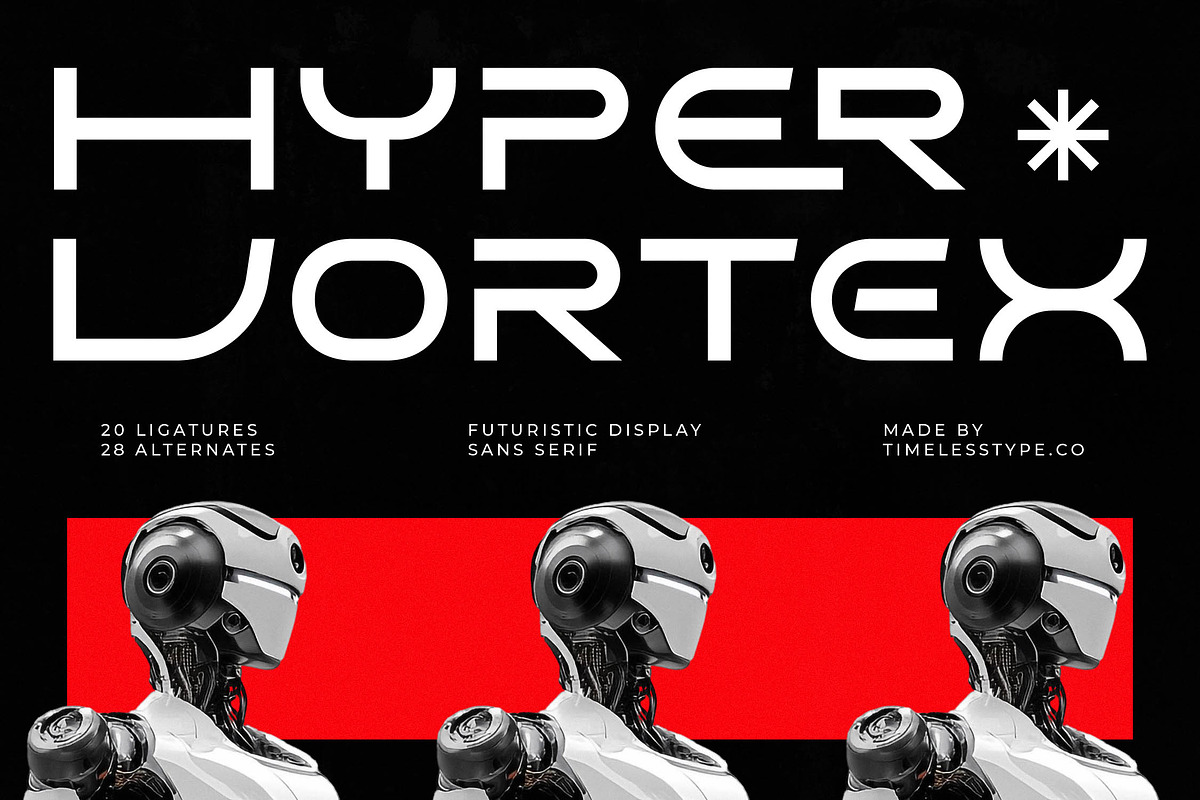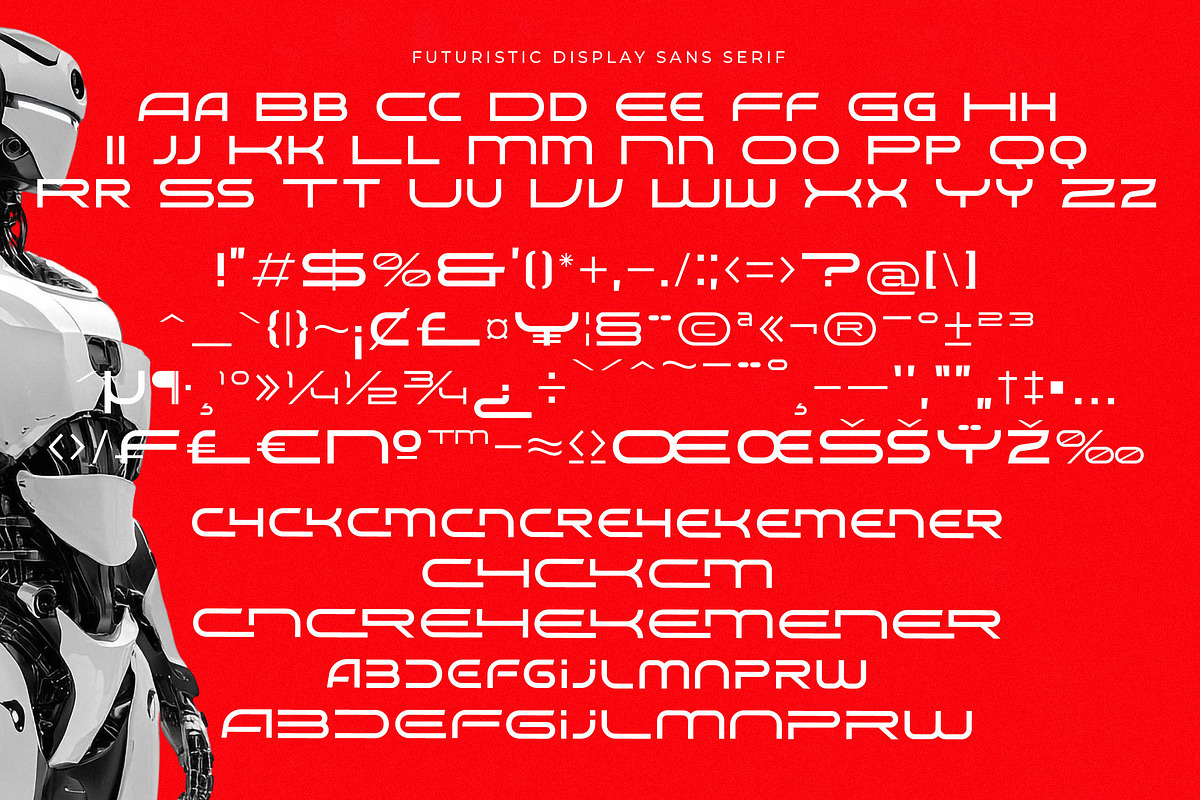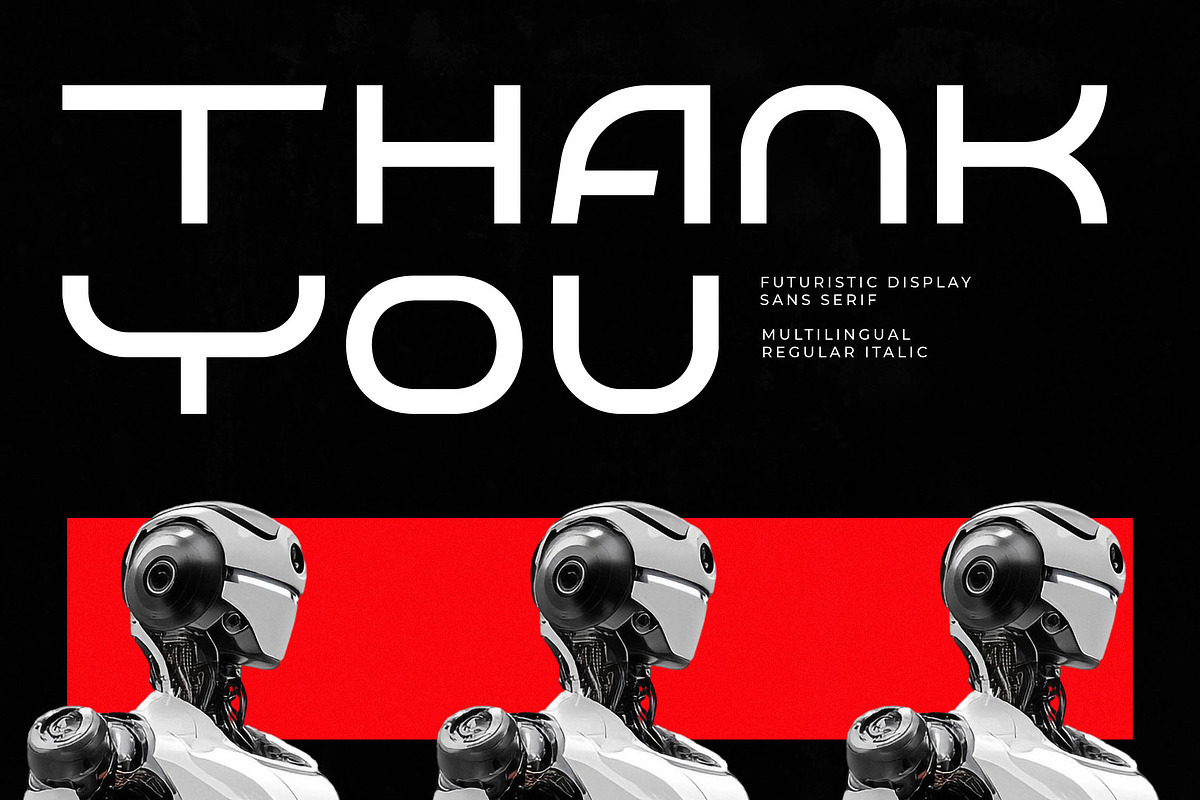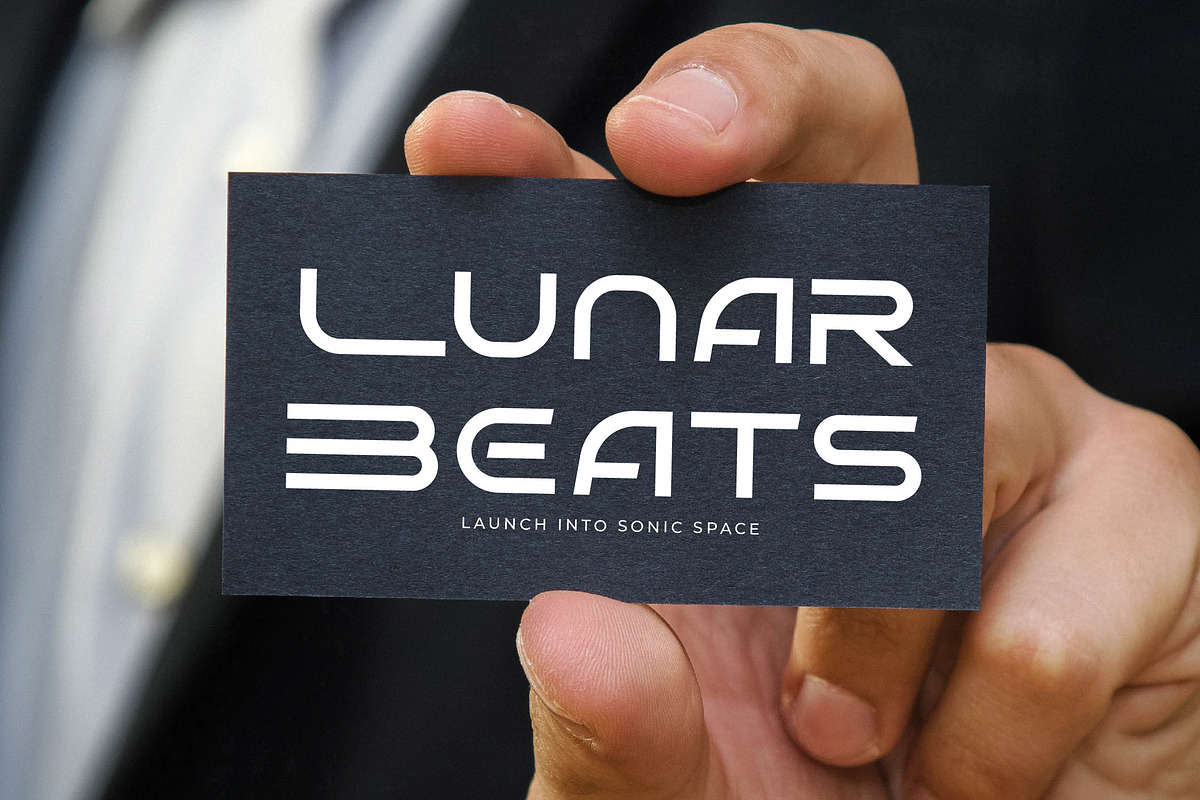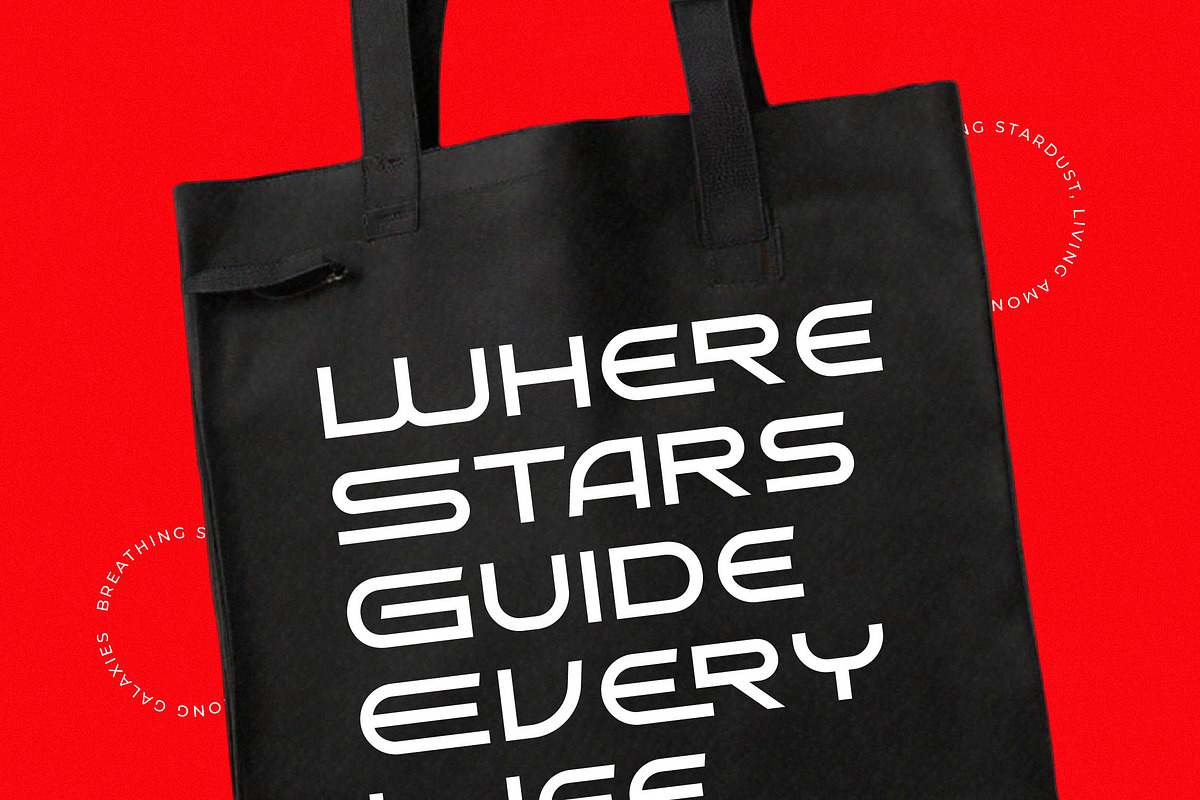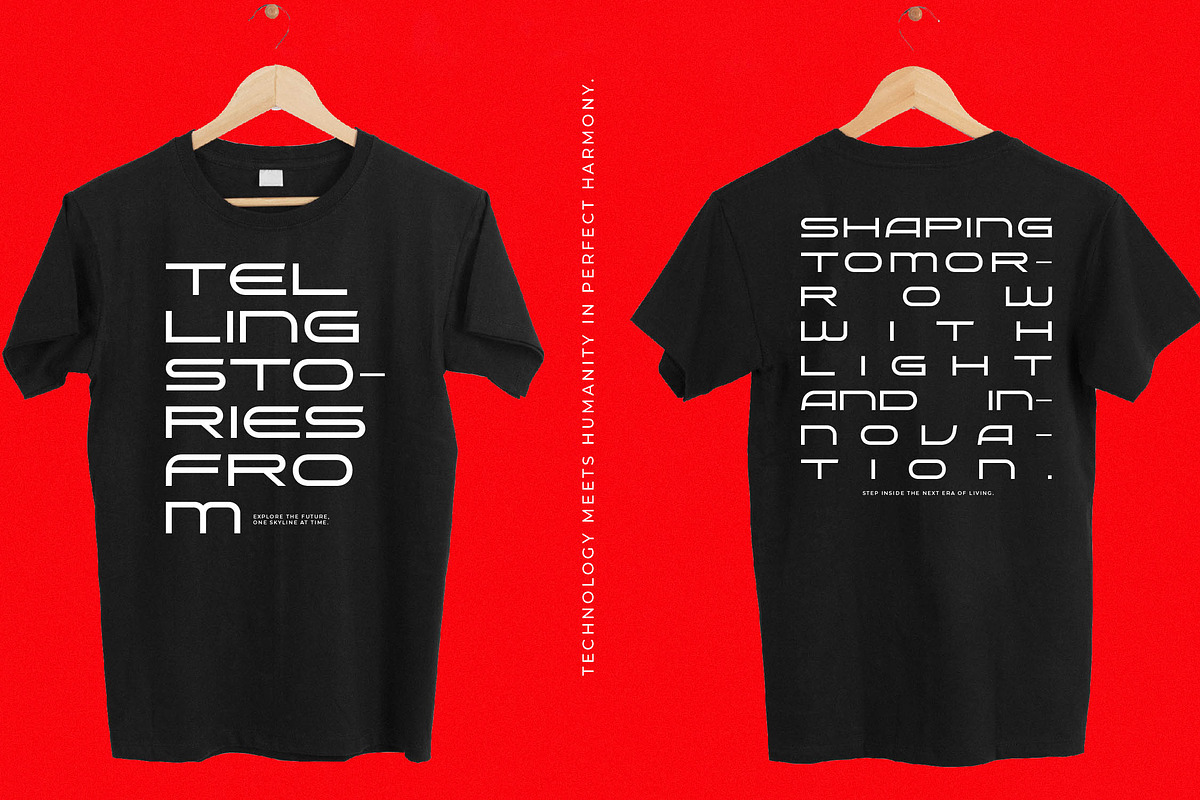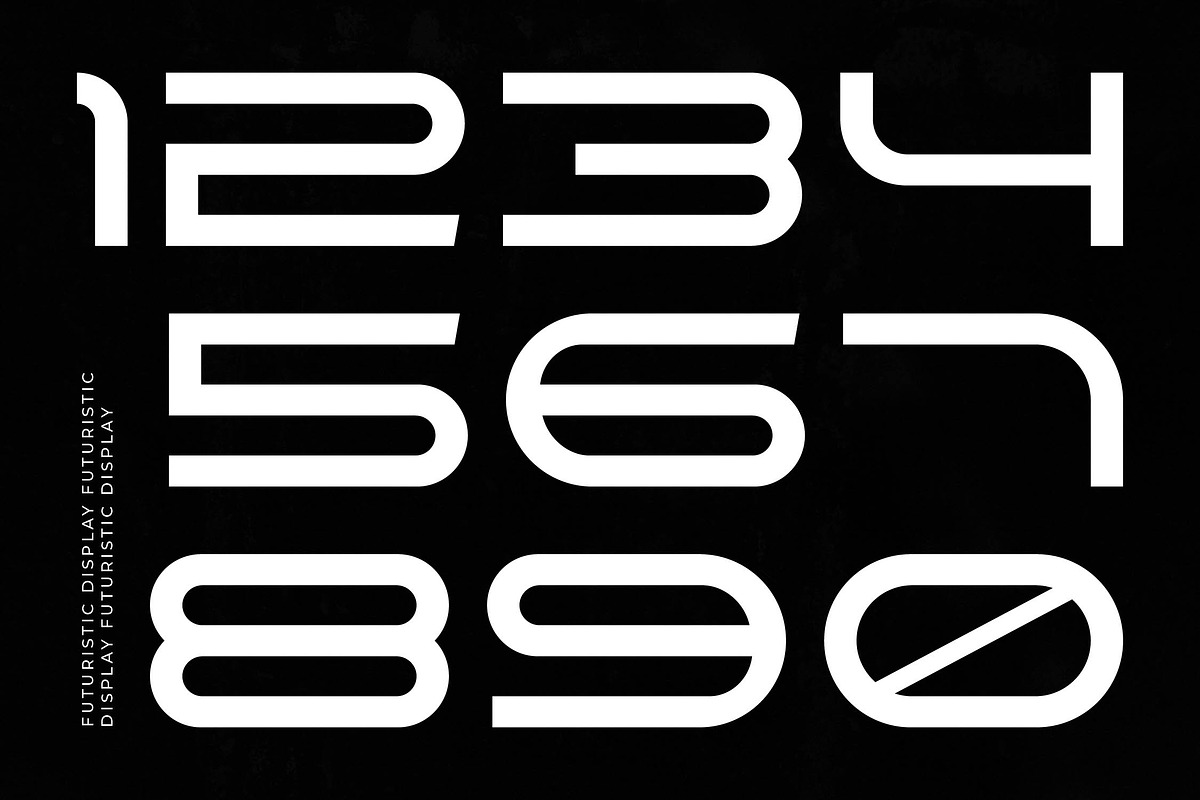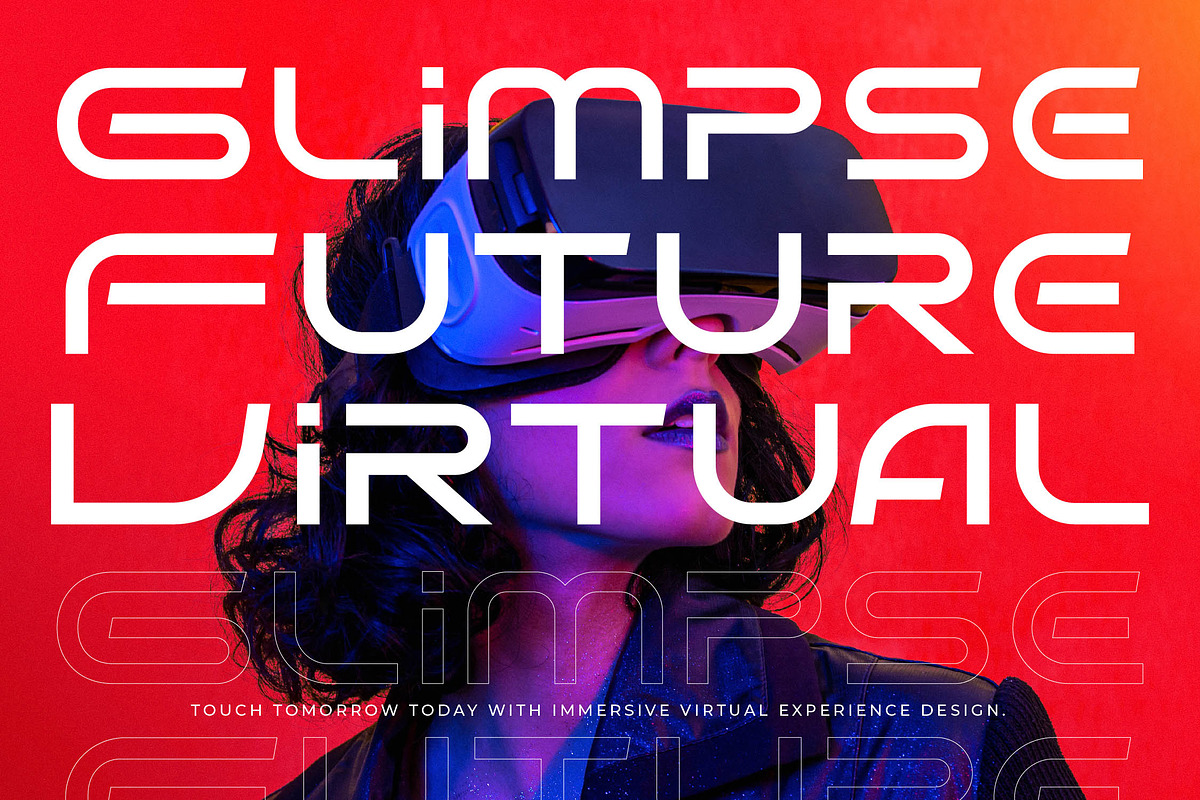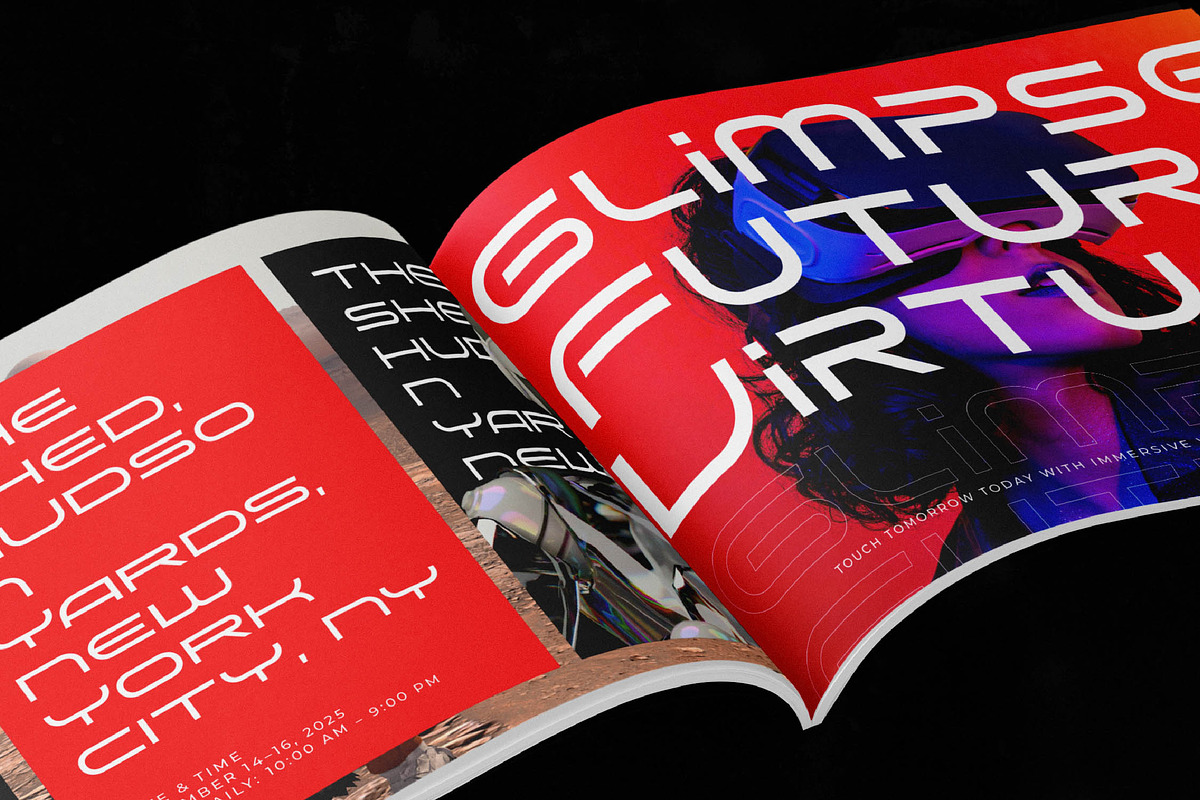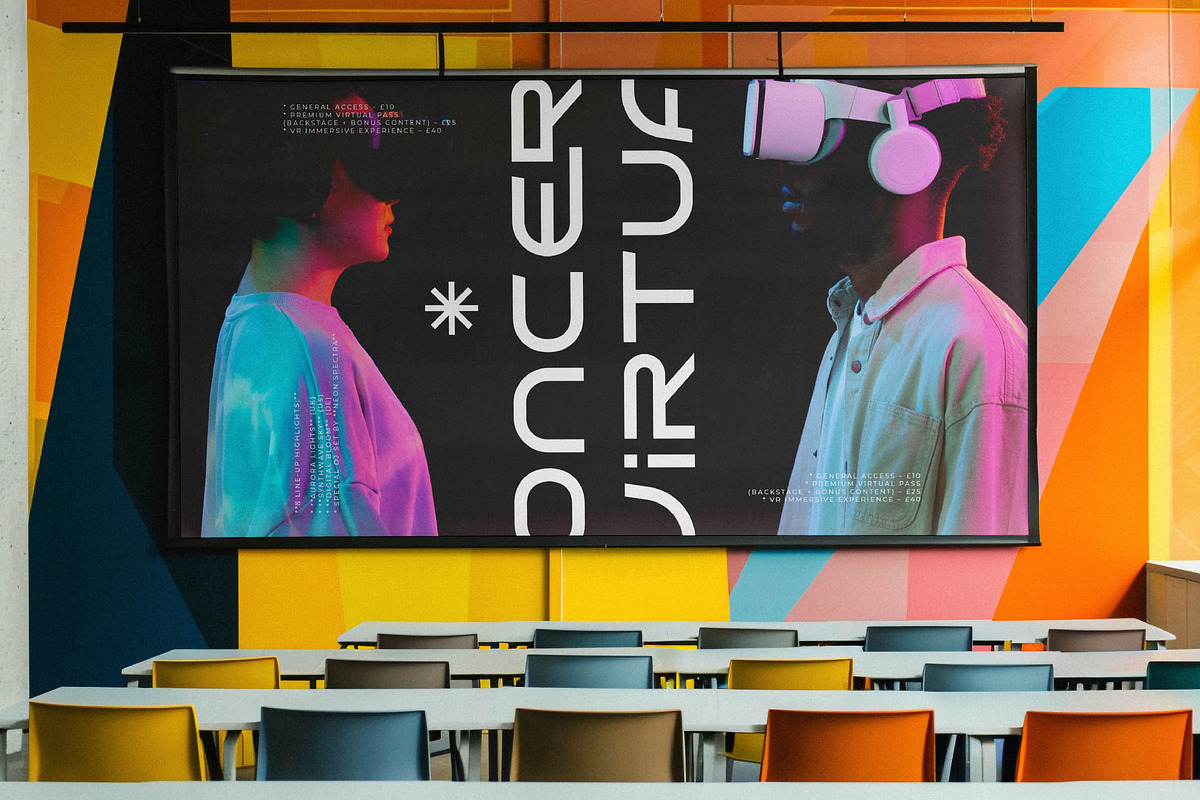
Hyper Vortex Futuristic Display
Hyper Vortex represents a bold leap into the next generation of digital aesthetics with its expansive, wide-set architecture and robotic precision. This typeface is a visual powerhouse engineered to dominate the screen and redefine the boundaries of modern high-tech design.
Inspired by the sleek surfaces of advanced robotics and the atmospheric neon of cyberpunk cityscapes, the font carries a heavy sense of velocity. Every character is meticulously crafted to reflect a world where artificial intelligence and human creativity merge into a single, streamlined vision.
This collection delivers a modern serif display aesthetic through its sharp terminals and luxury typography feel that guarantees an immediate branding impact. As a versatile editorial font, it provides the high-contrast serif sophistication needed for upscale digital environments and high-performance creative projects.
Capturing the current modern serif trend, this typeface is a essential tool for designers seeking editorial display fonts with a sharp, innovative edge. It provides the character-driven typography necessary to make a statement in a crowded marketplace where visual distinction is the ultimate currency.
Optimized for high-end logo design and global branding initiatives, the font excels in technical editorial layouts and futuristic packaging concepts. While perfect for tech, it adds a surprising avant-garde touch to wedding invitations or high-concept fashion lookbooks and lifestyle magazines.
Professional designers will appreciate the inclusion of specialized ligatures and creative alternates that allow for custom character configurations. With full multilingual support and a wide range of international characters, plus decorative swashes, it ensures your message resonates across all borders.